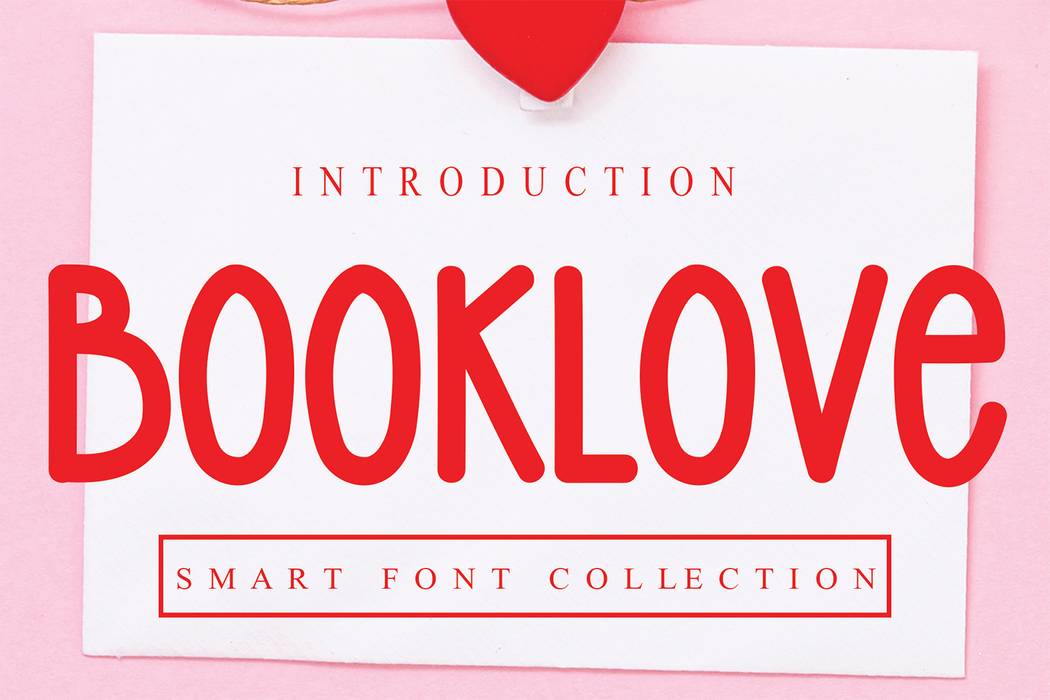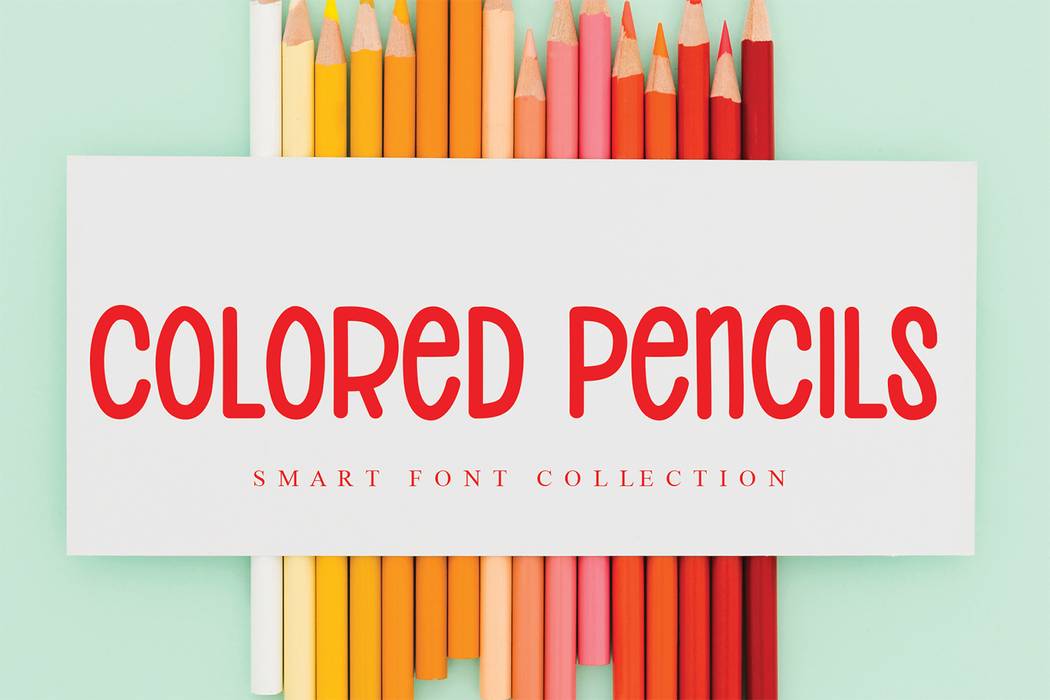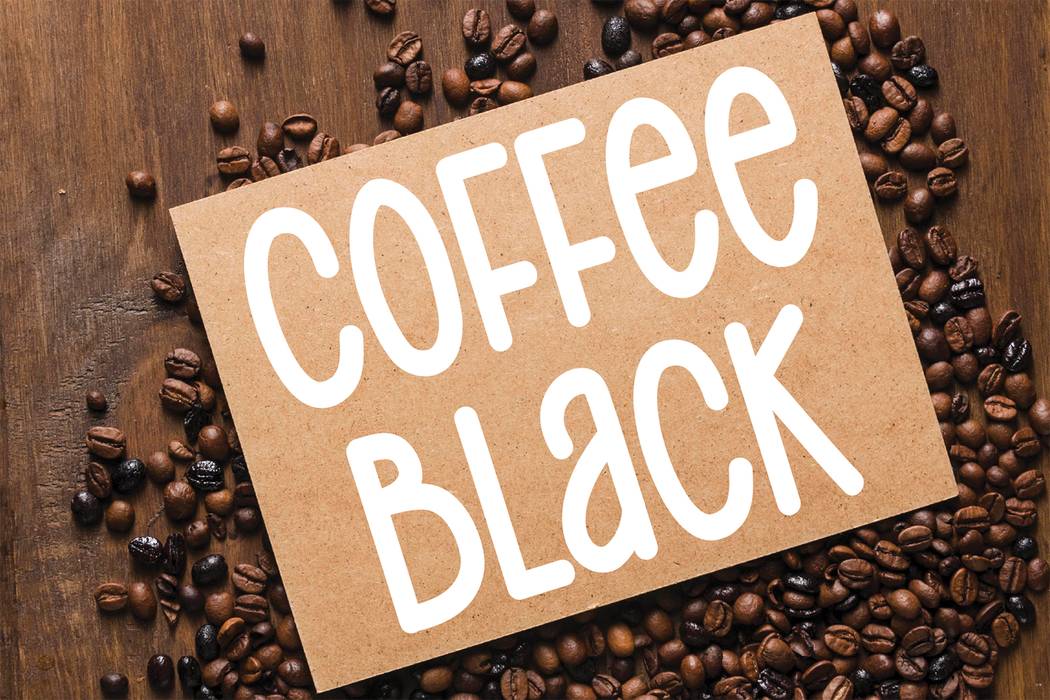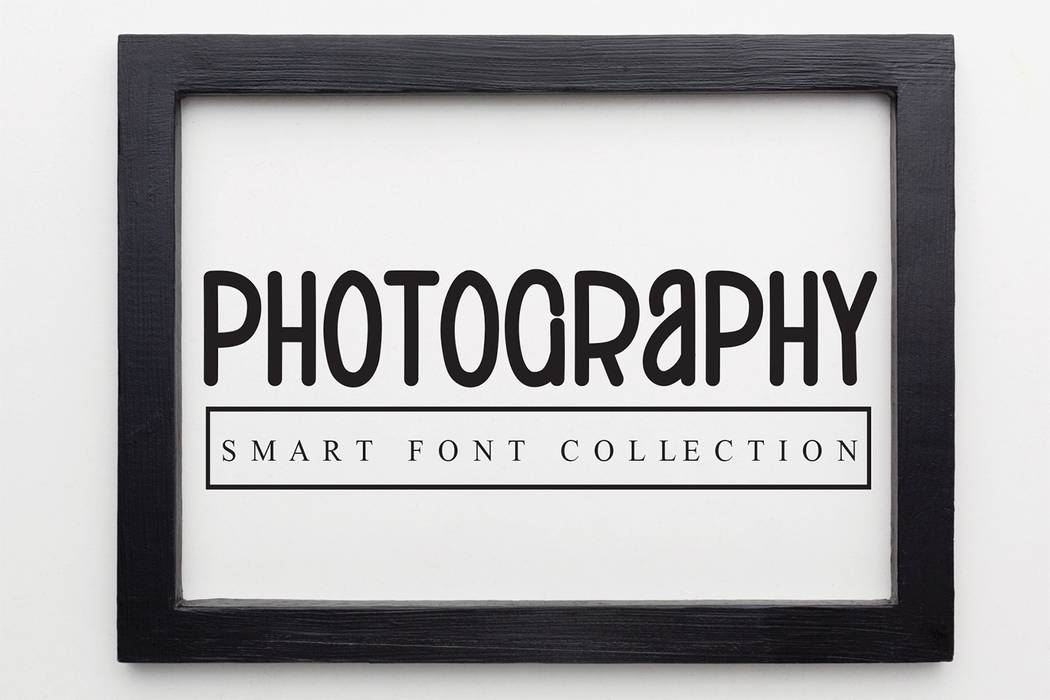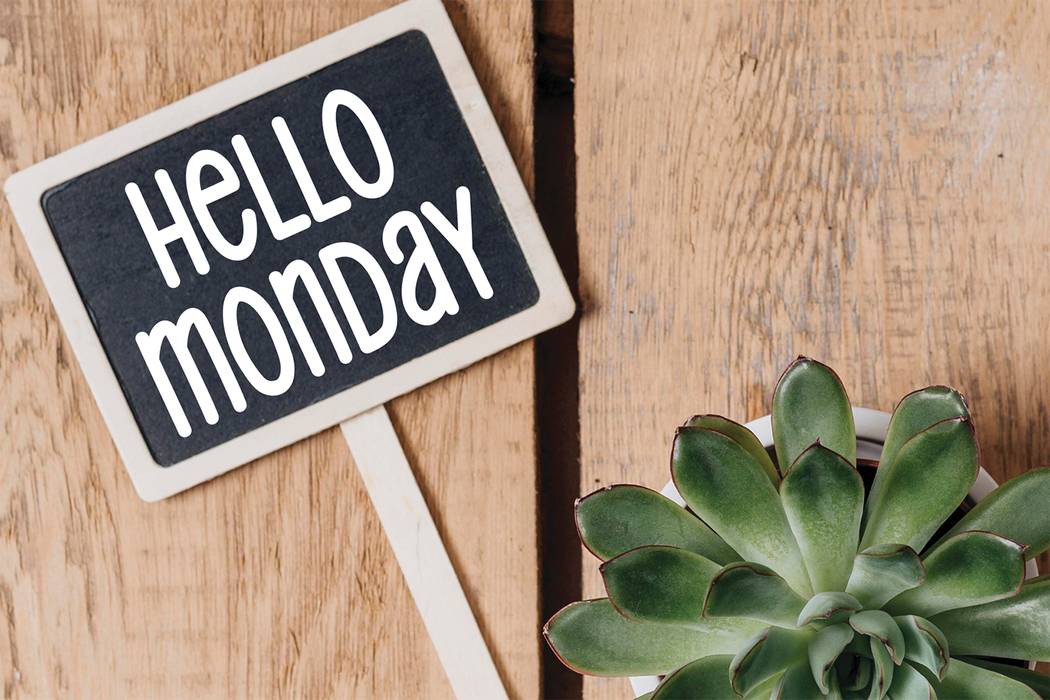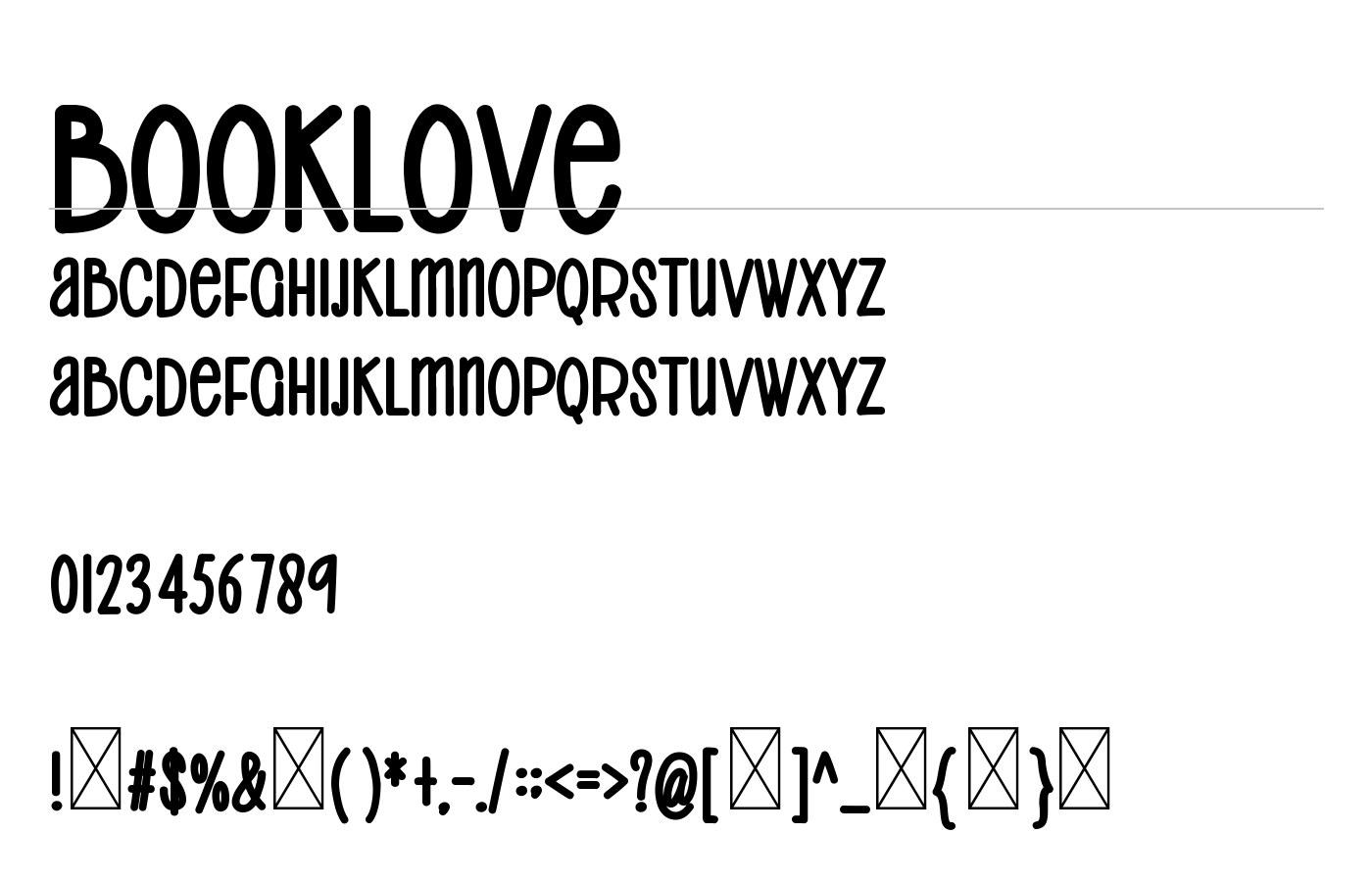
Booklove is a quirky and playful sans serif font with a hand-drawn feel, featuring tall, narrow letterforms and rounded edges that give it a friendly and approachable personality. Its lightweight strokes and irregular shapes make it ideal for creative projects, children’s books, casual branding, and any design needing a warm, informal touch that stands out. This font works particularly well in headlines and logos where its unique charm can shine.
Booklove Font